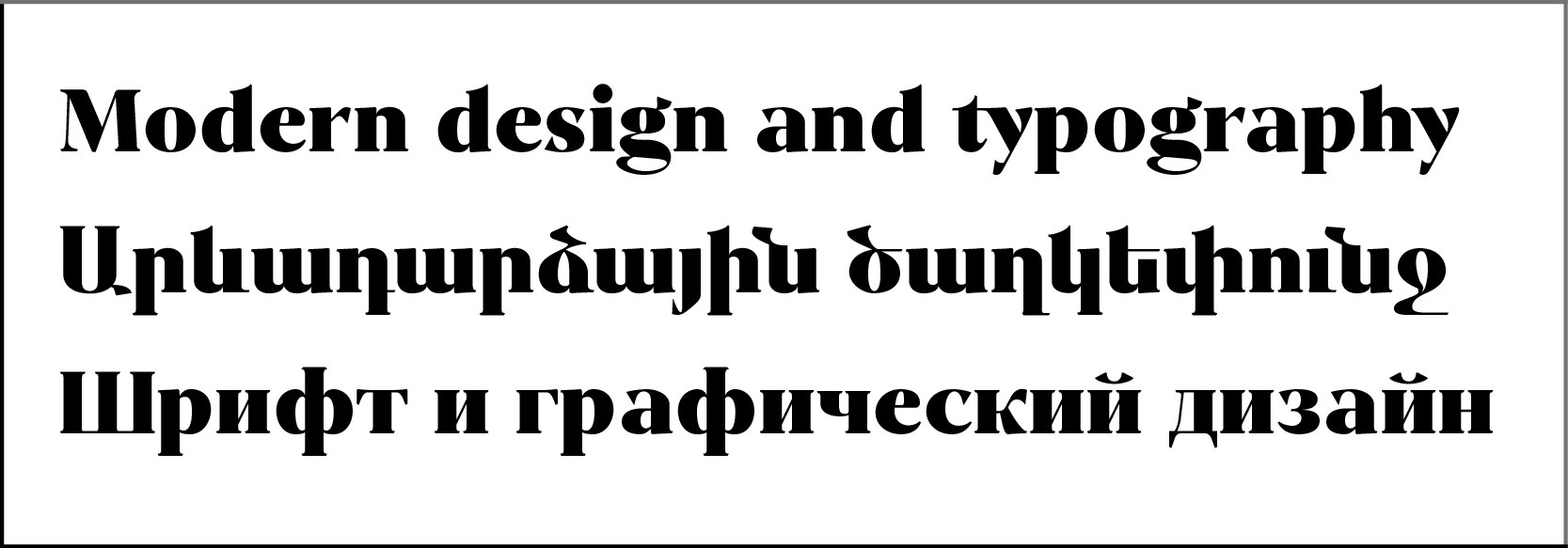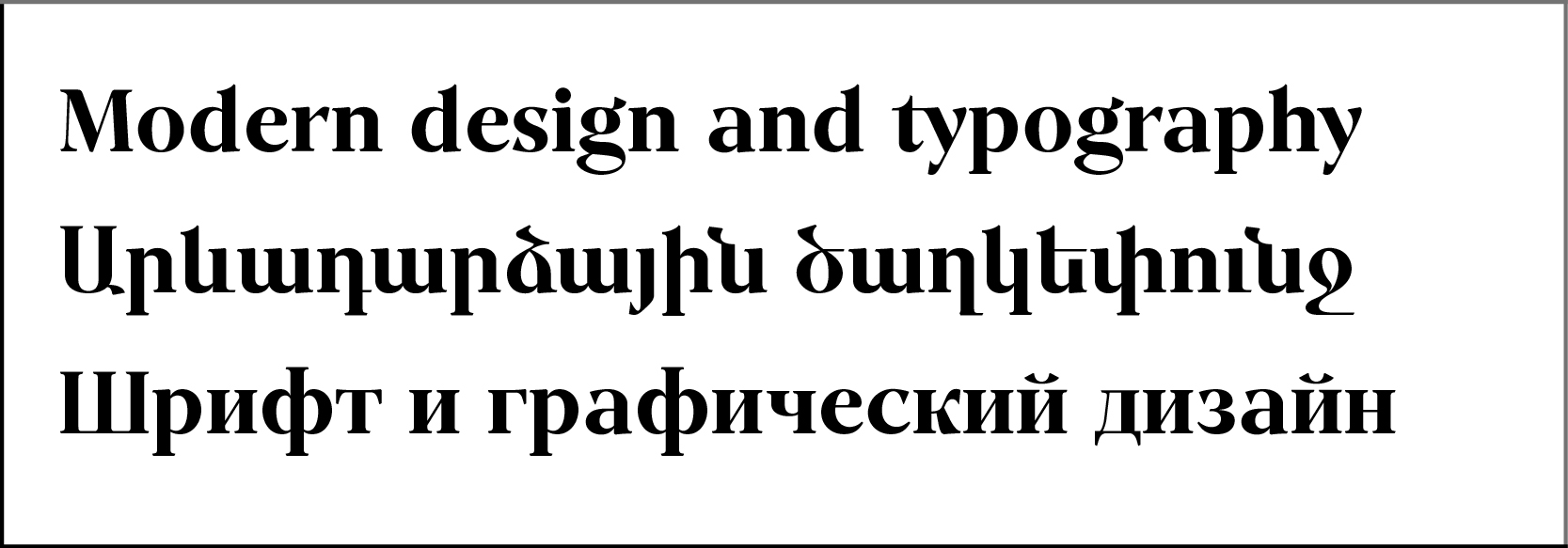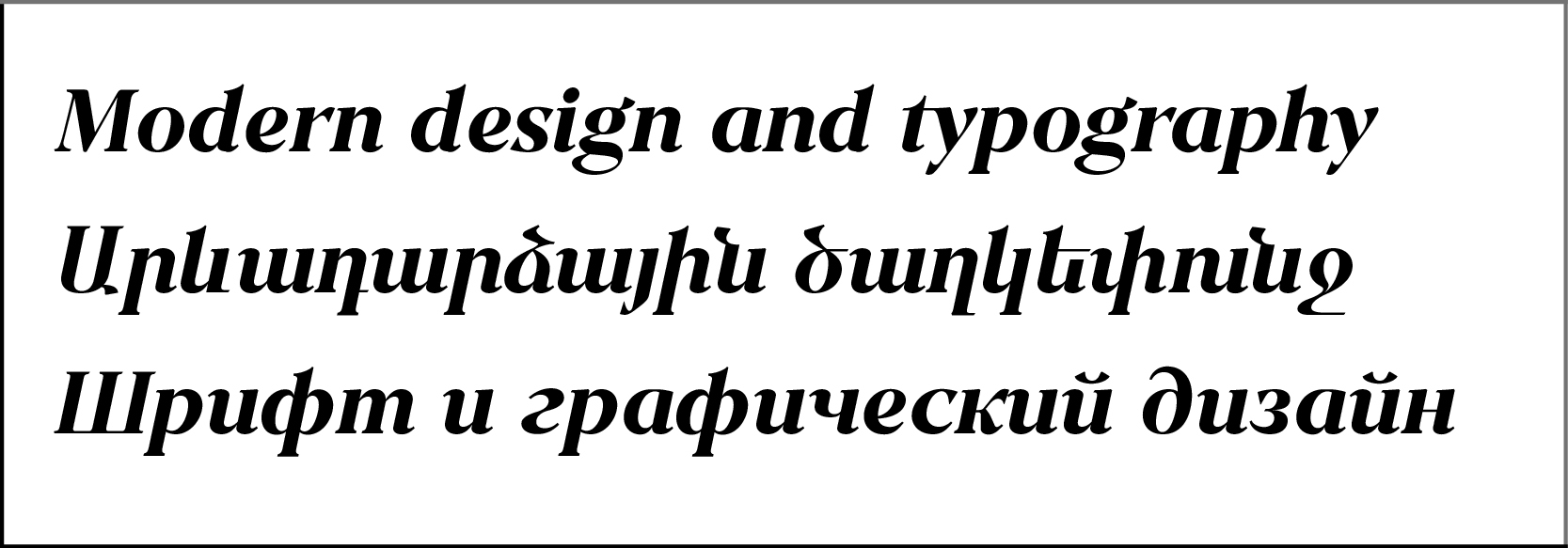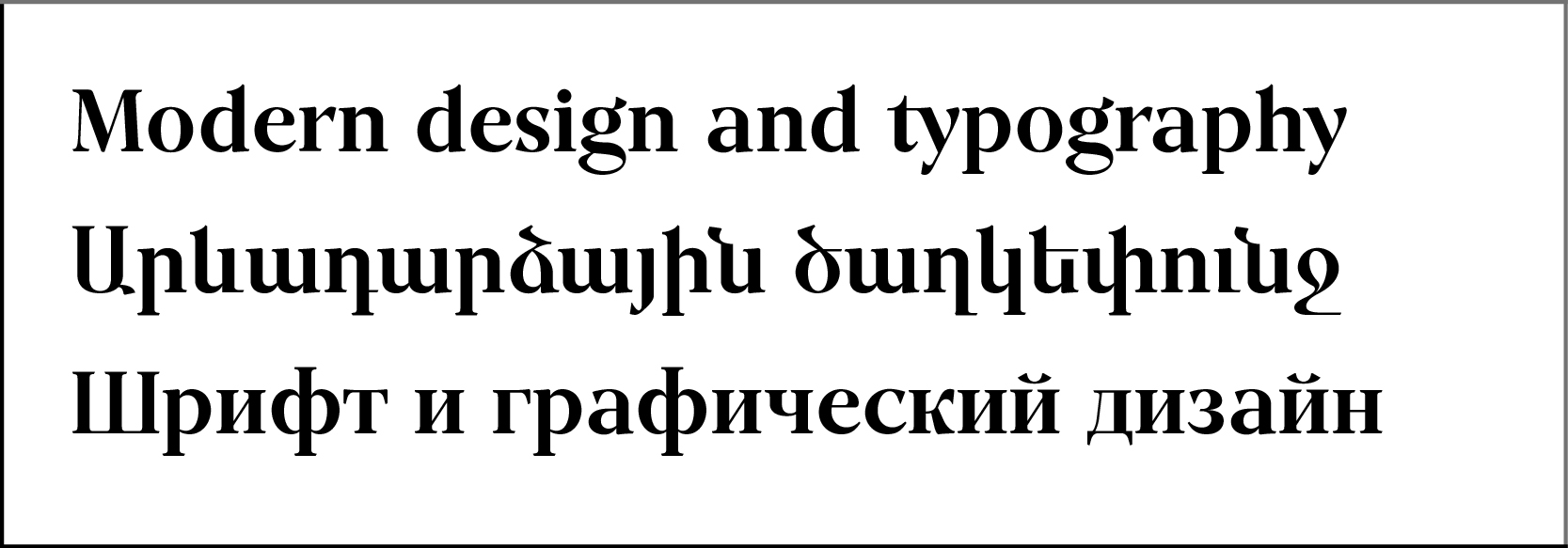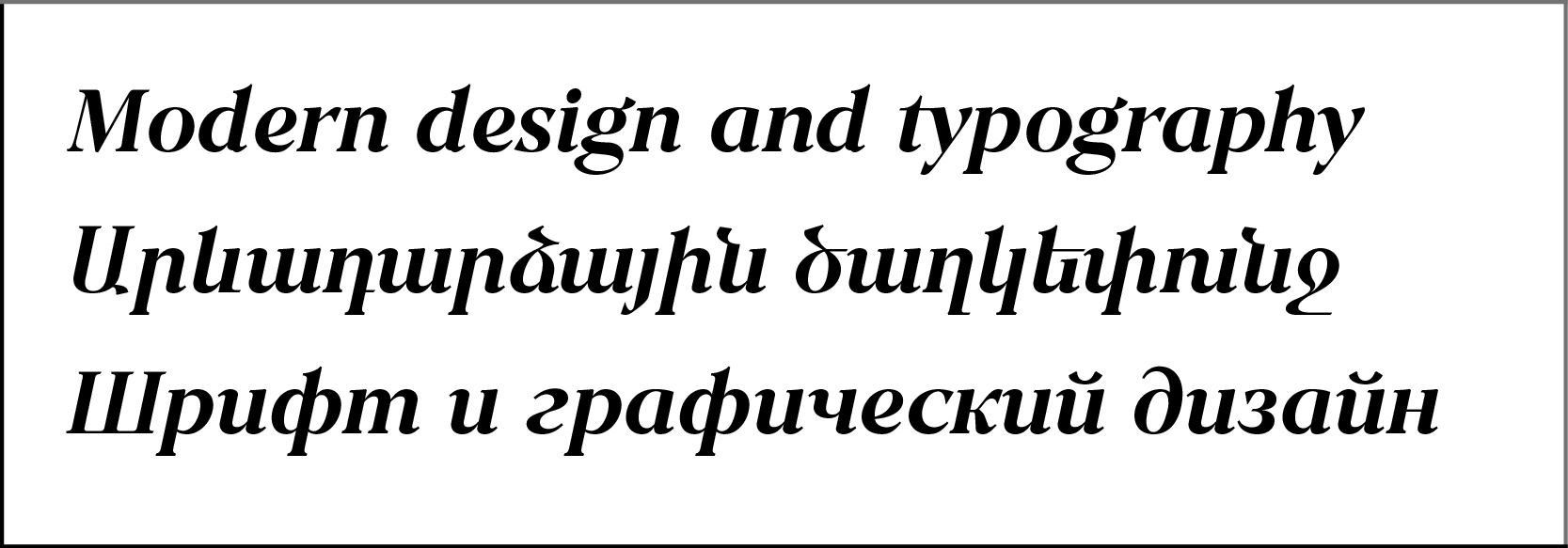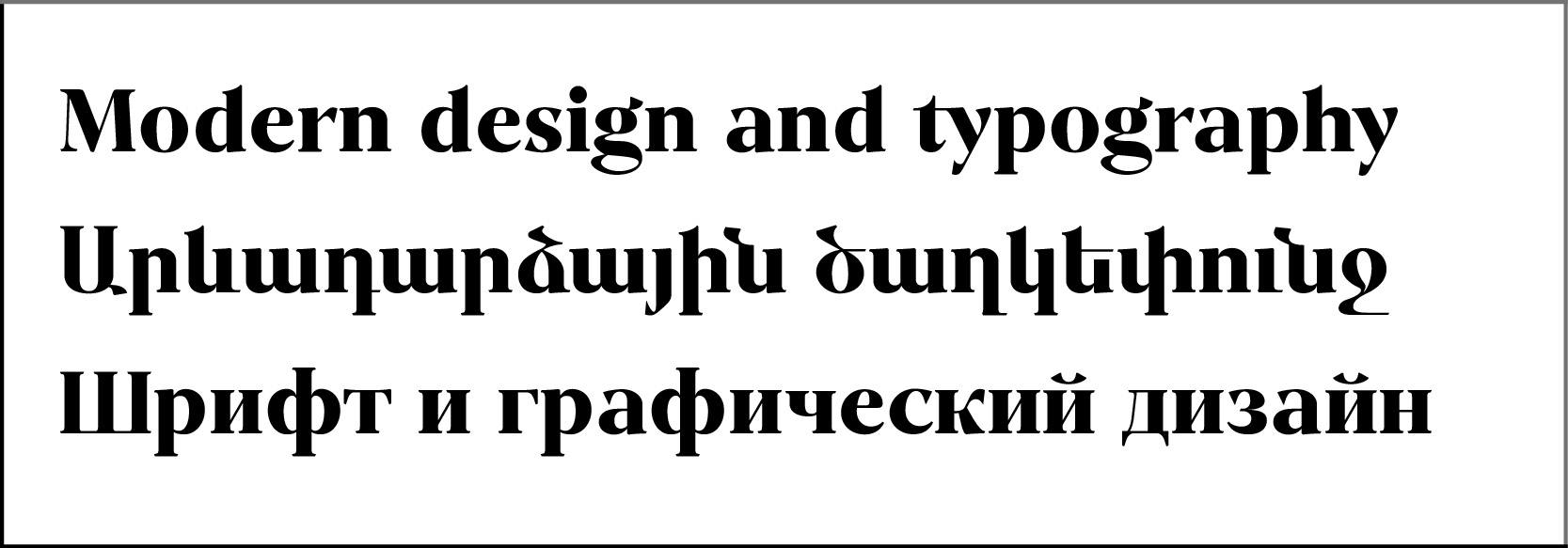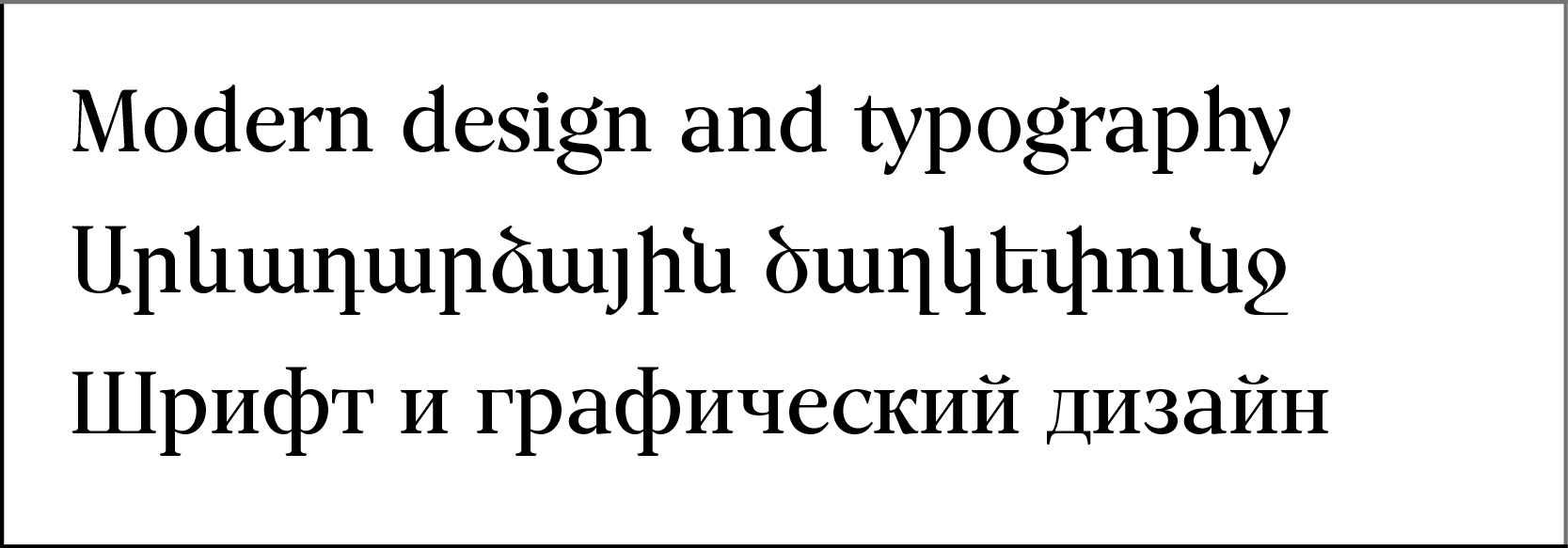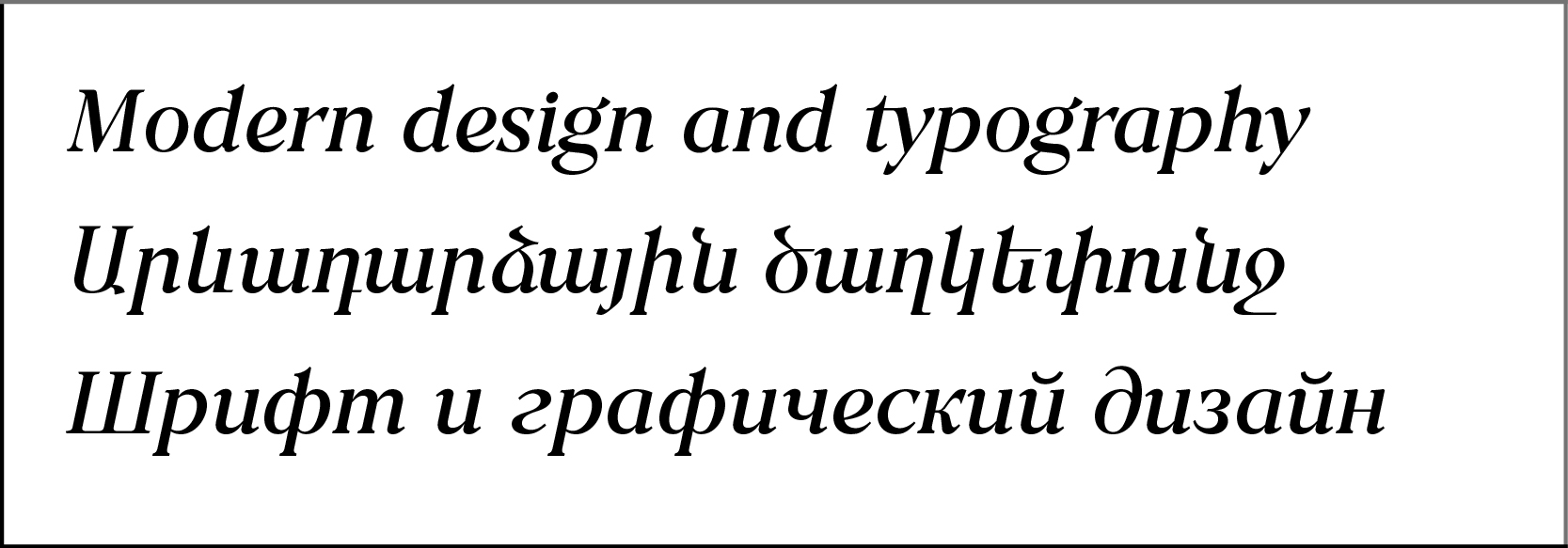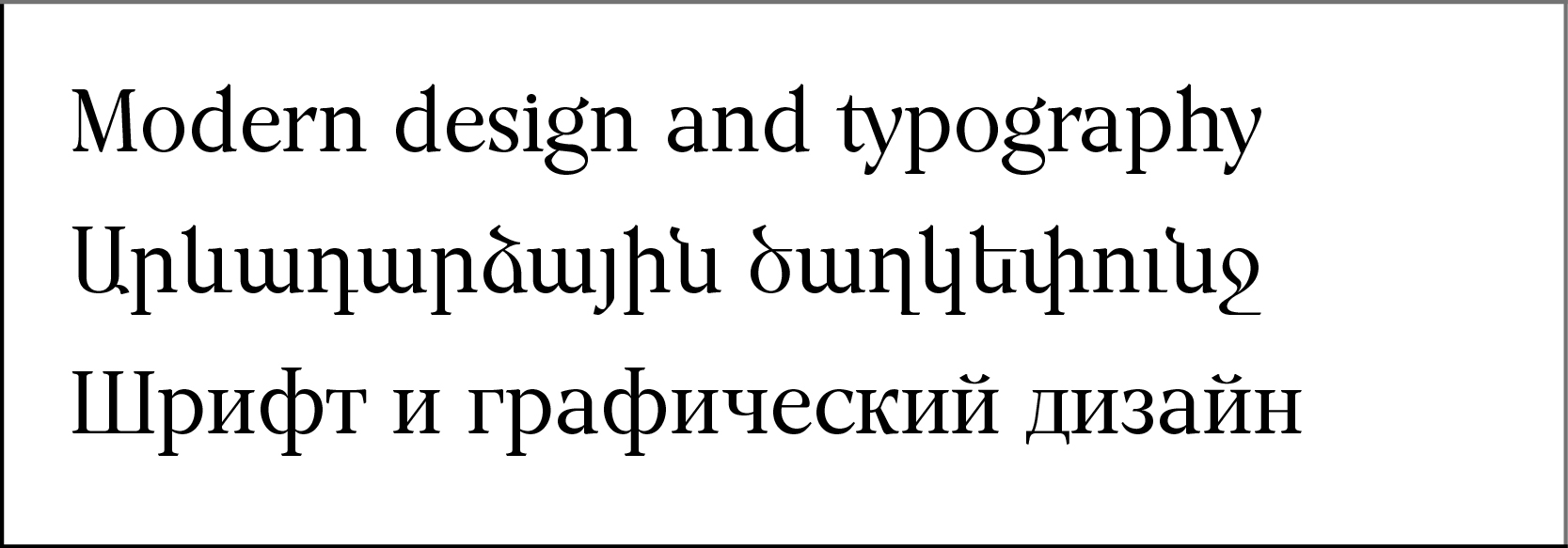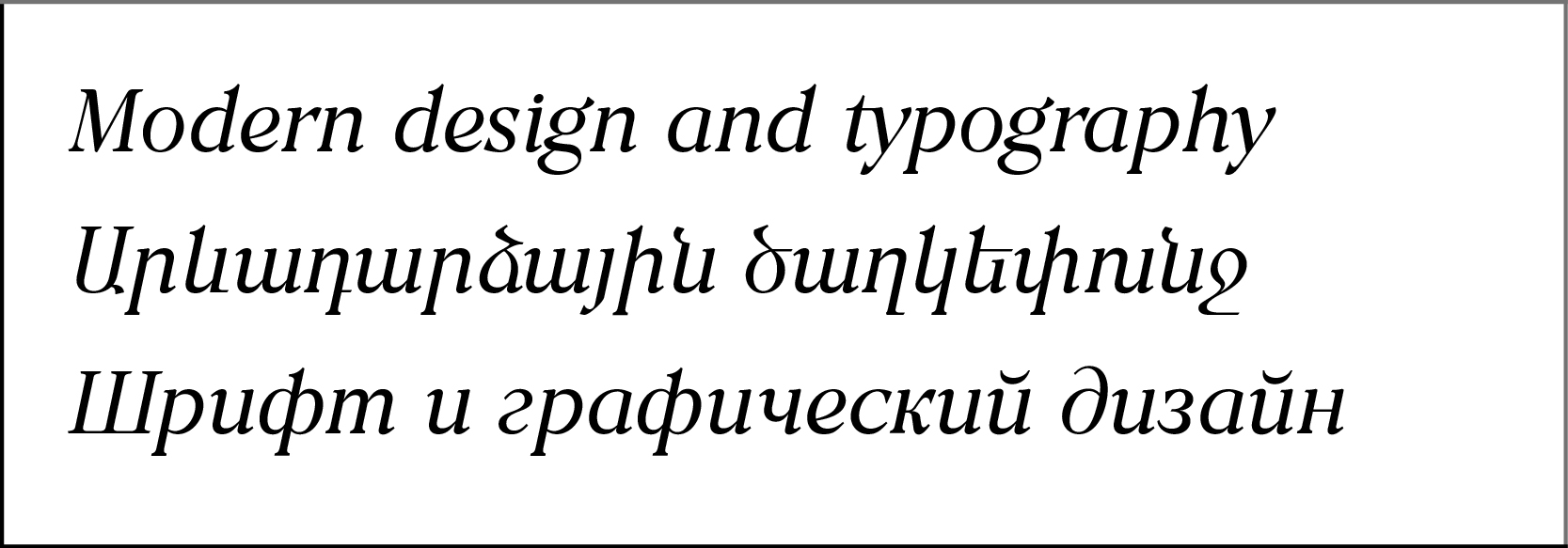
GHEA Apricot
Design date: 2024
Original Two side Serif Font with 13 styles: 7 Upright + 6 Italic.
In GHEA Apricot Included Armenian, Latin Central European and Cyrillic 1351 language systems.
The font contains many Armenian and Latin Standard and Advanced Ligatures.
Gold medal in Granshan International Type Design Competition 2023-2024 years.